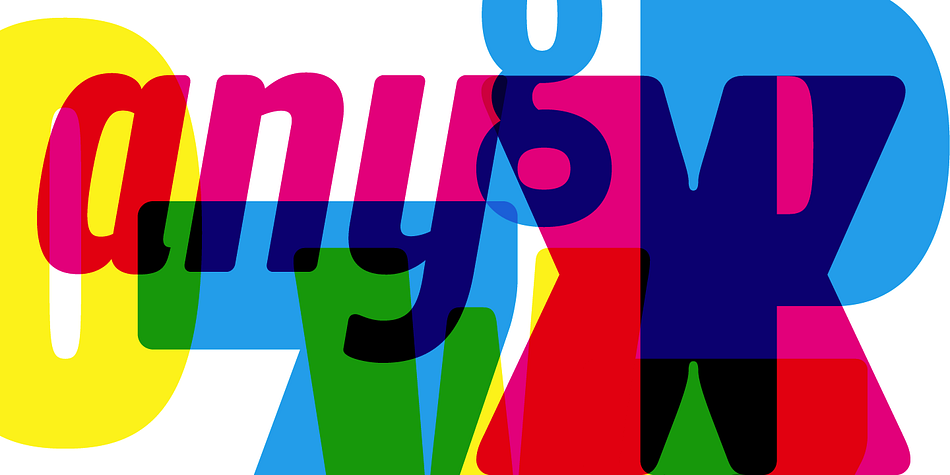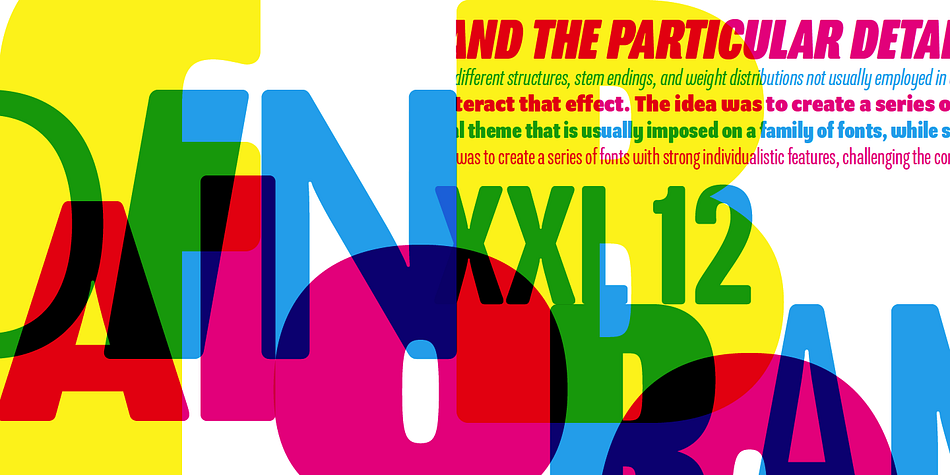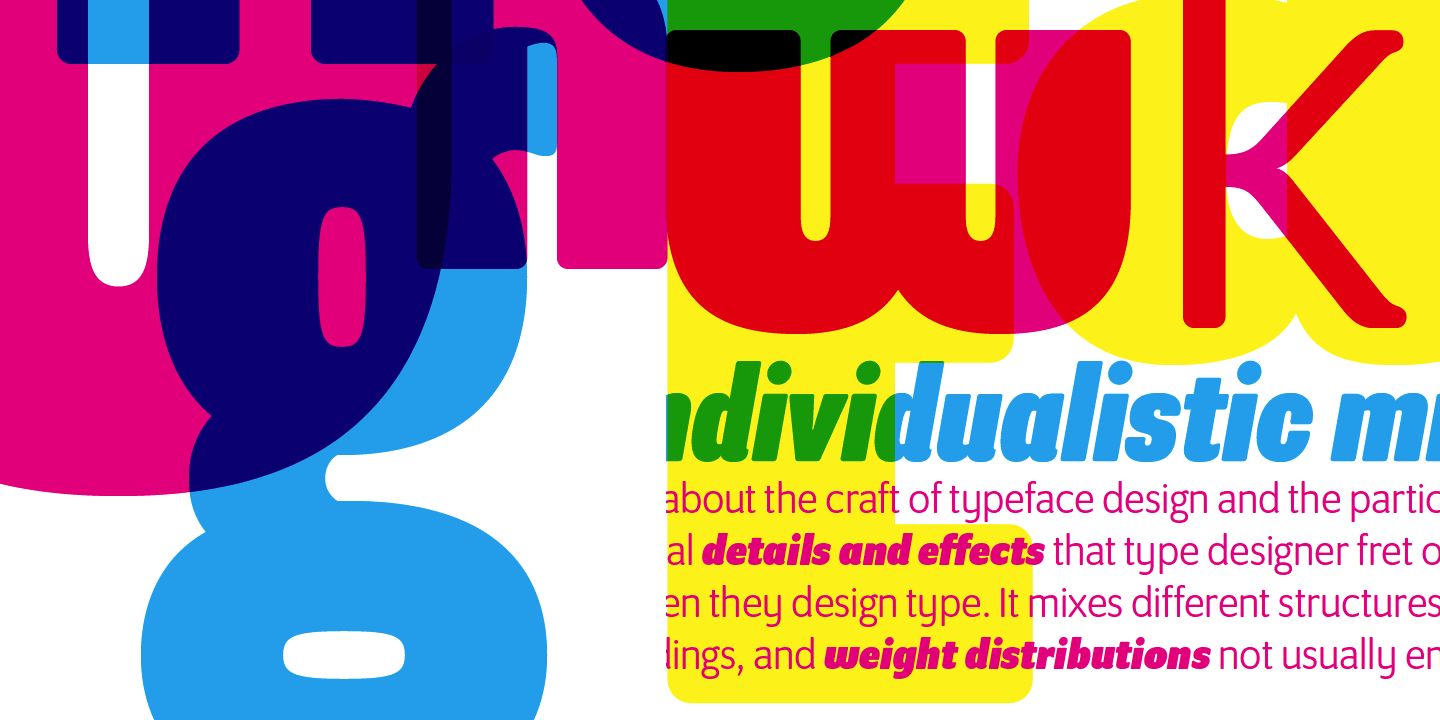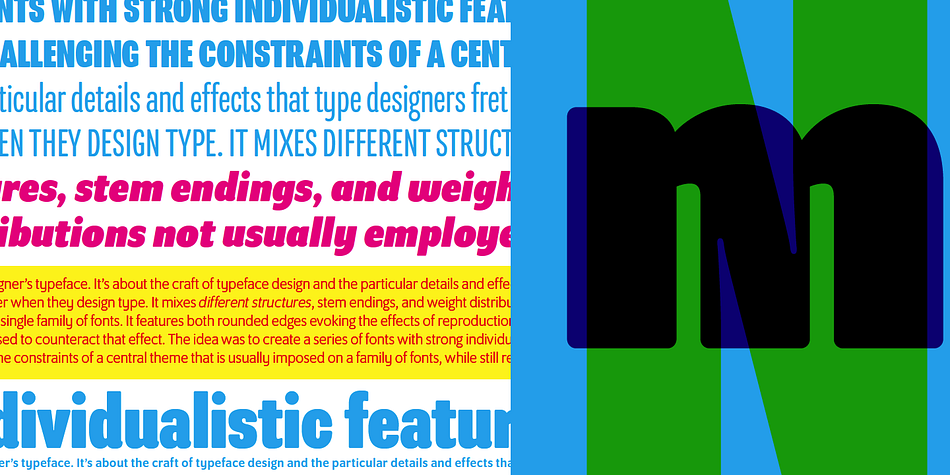
Designed by Zuzana Licko, Program is a sans serif font family. This typeface has fourteen styles and was published by Emigre.
Program is a type designer’s typeface. It’s about the craft of typeface design and the particular details and effects that type designers fret over when they design type. It mixes different structures, stem endings, and weight distributions not usually employed in a single family of fonts. It features both rounded edges evoking the effects of reproduction, and ink traps, the technique used to counteract that effect. The idea was to create a series of fonts with strong individualistic features, challenging the constraints of a central theme that is usually imposed on a family of fonts, while still relating to each other in terms of overall look and feel.
Program has four weights, while Program Narrow has three. Instead of matching the overall “color” in text settings between the Program and Program Narrow versions, as is often done, we matched the stem weights. This allows for a more comfortable matching of stem weights when combining the two versions at larger sizes on posters or in headlines.
Structurally, the Program type family would be difficult to classify as it mixes different structural models. Program Book, for instance, with its low contrast, has the features of a Neo-Grotesque with slight Humanist tendencies that are most visible in the calligraphic, brush- like tail endings of the lowercase a, d, b, k, u, and capital R and K. Program Narrow is decidedly more Modern in structure, with pronounced vertical stress carried throughout all characters.
Program and Program Narrow diverge most notably in the design of the a, c, e and s in both lowercase and capitals. In Program, the terminals of these curved characters are vertical. This opens up the counter spaces and increases legibility, contributing to its fitness as a text font. In Program Narrow the terminals are horizontal. Bending the curves into themselves like this accentuates the verticality of Program Narrow. The effect also creates more compact letter shapes making it a suitable headline font.